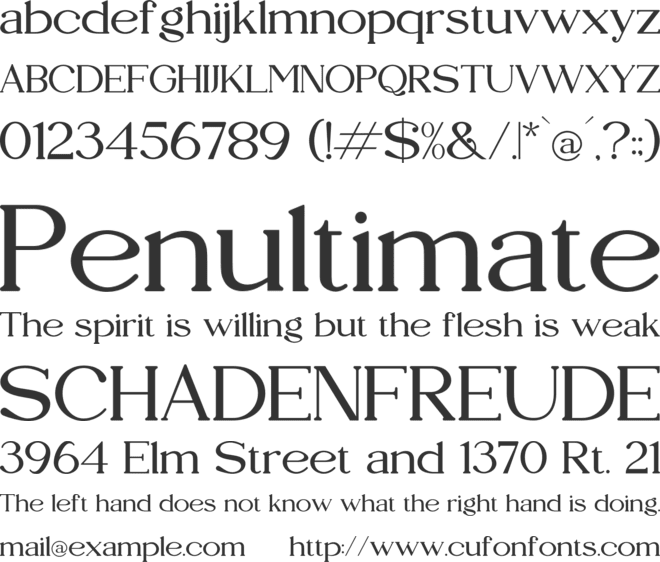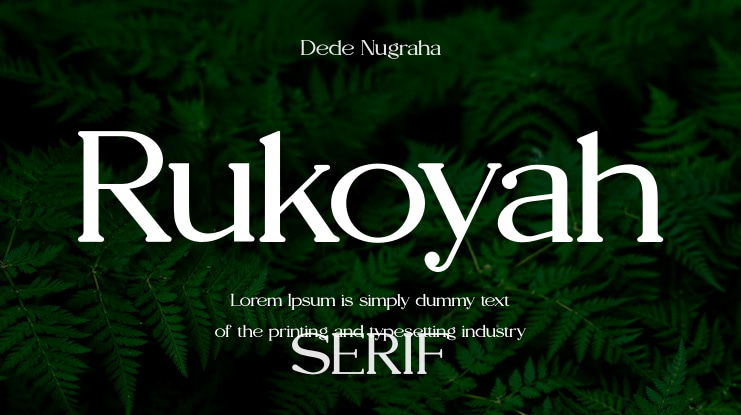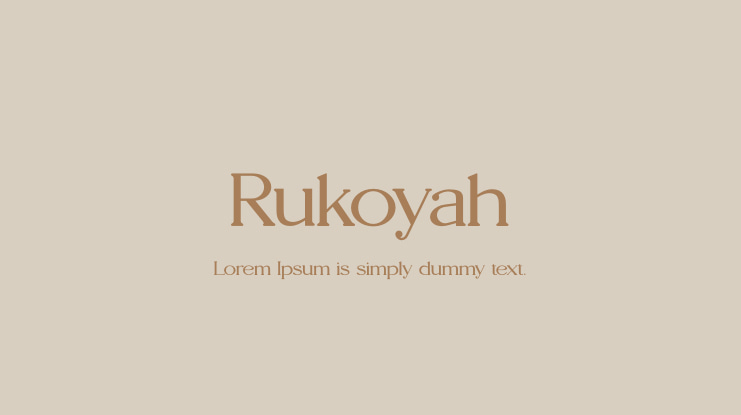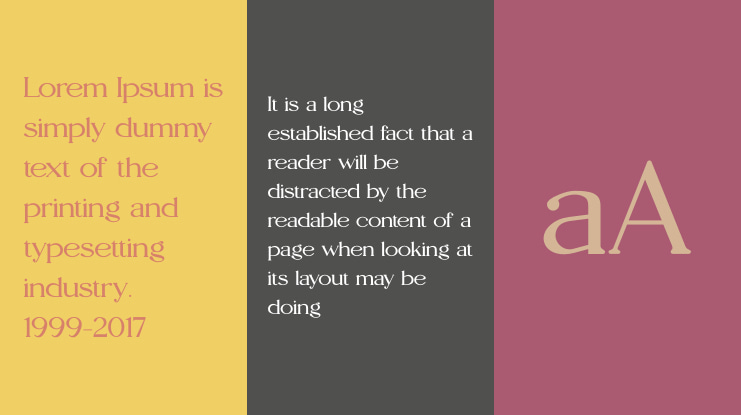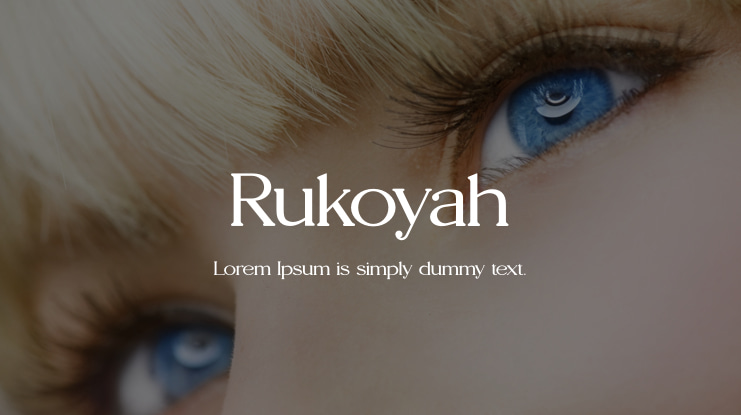
Rukoyah Modern Serif is suitable for any projects such as: logos, branding projects, homeware designs, product packaging, mugs, quotes, posters, shopping bags, t-shirts, book covers, name card, invitation cards, greeting cards, label, photography, watermark, special events, and all your other lovely projects that need a beautiful script taste.